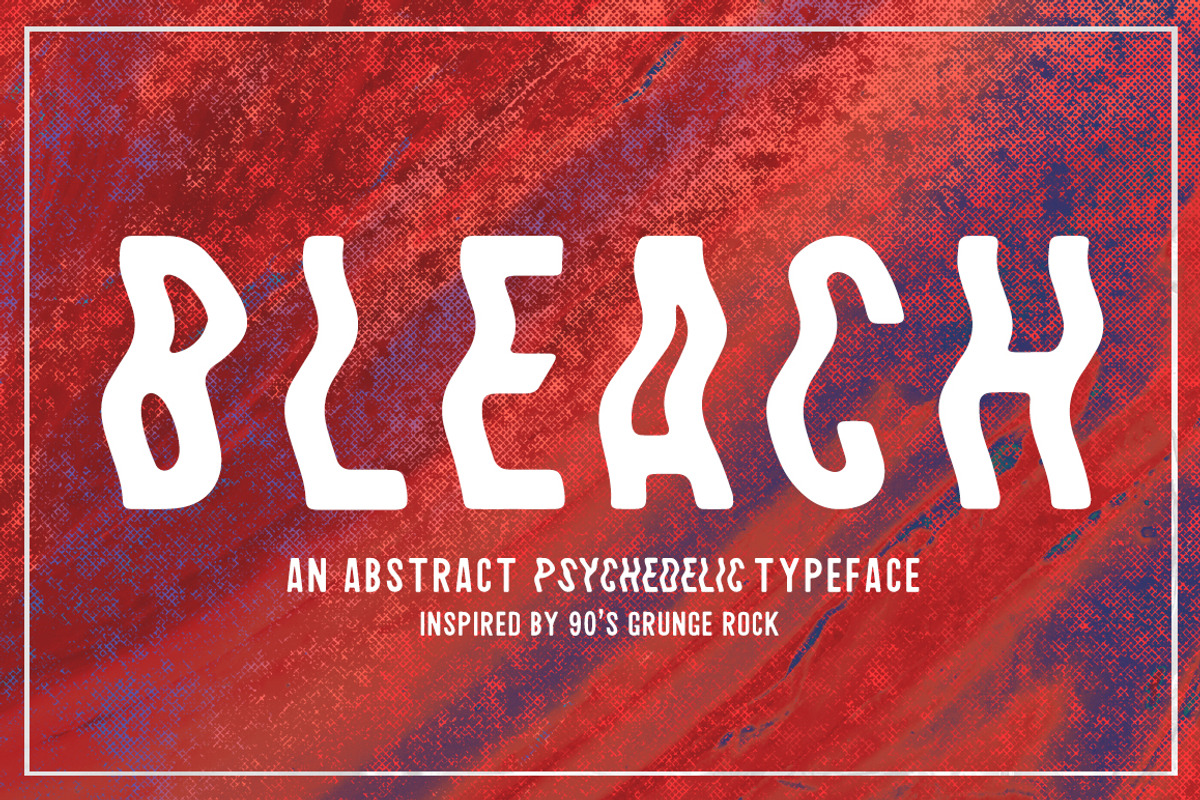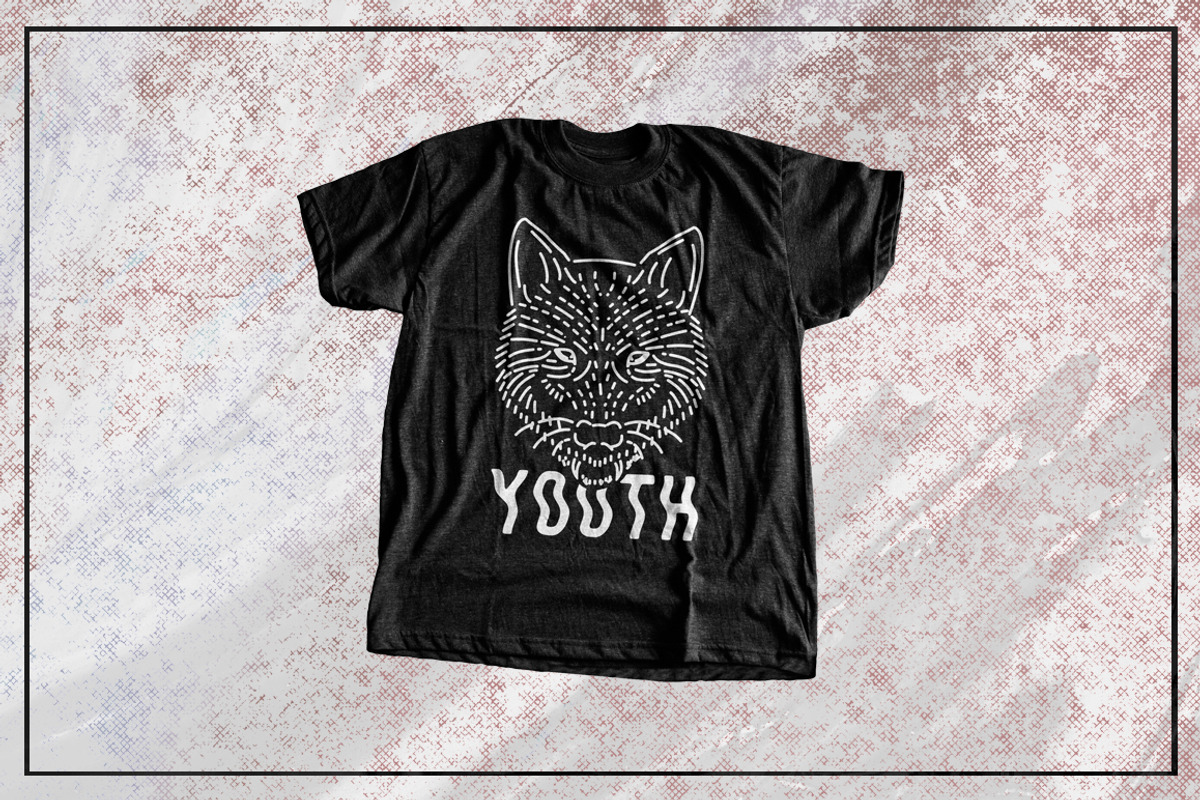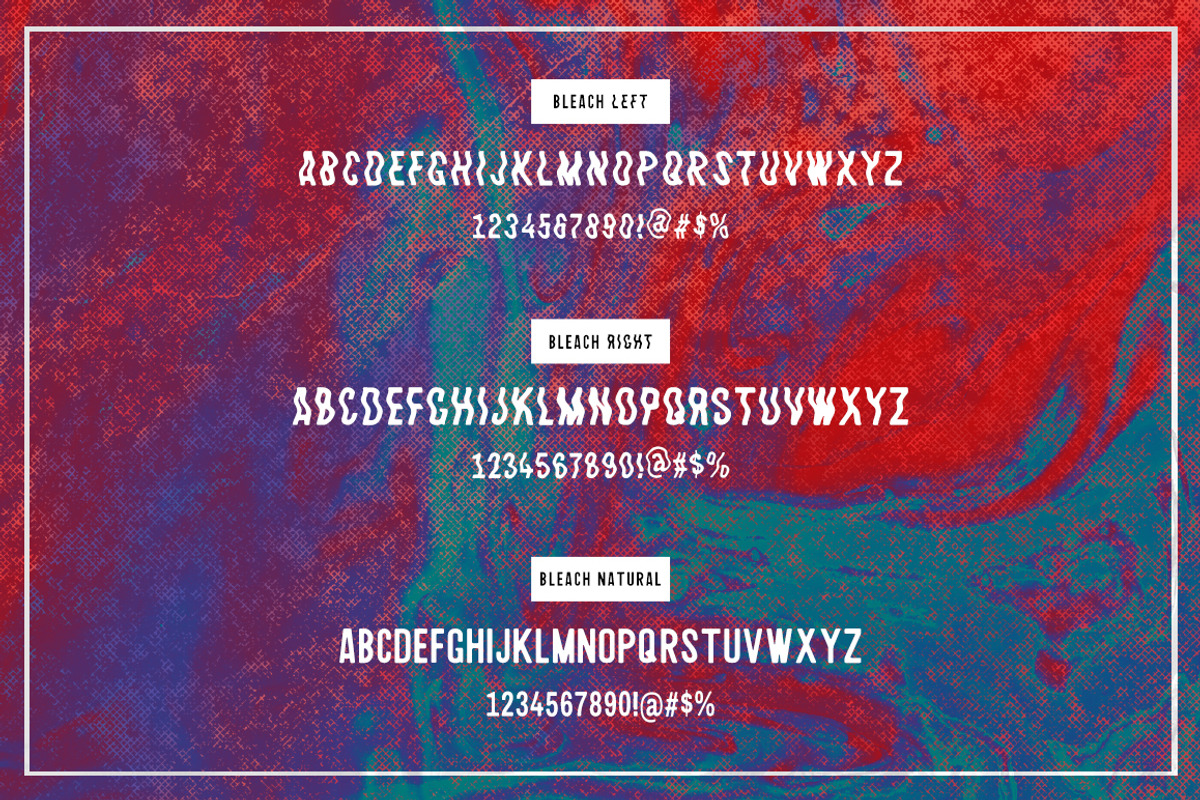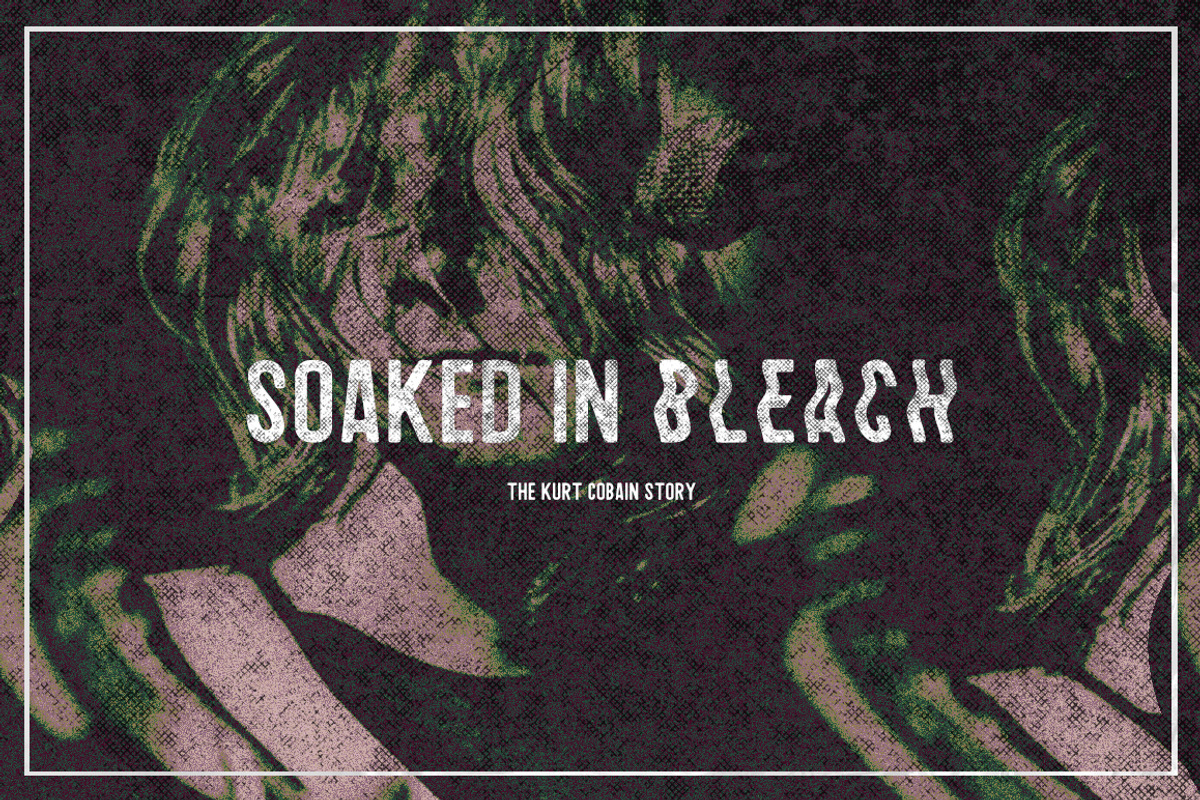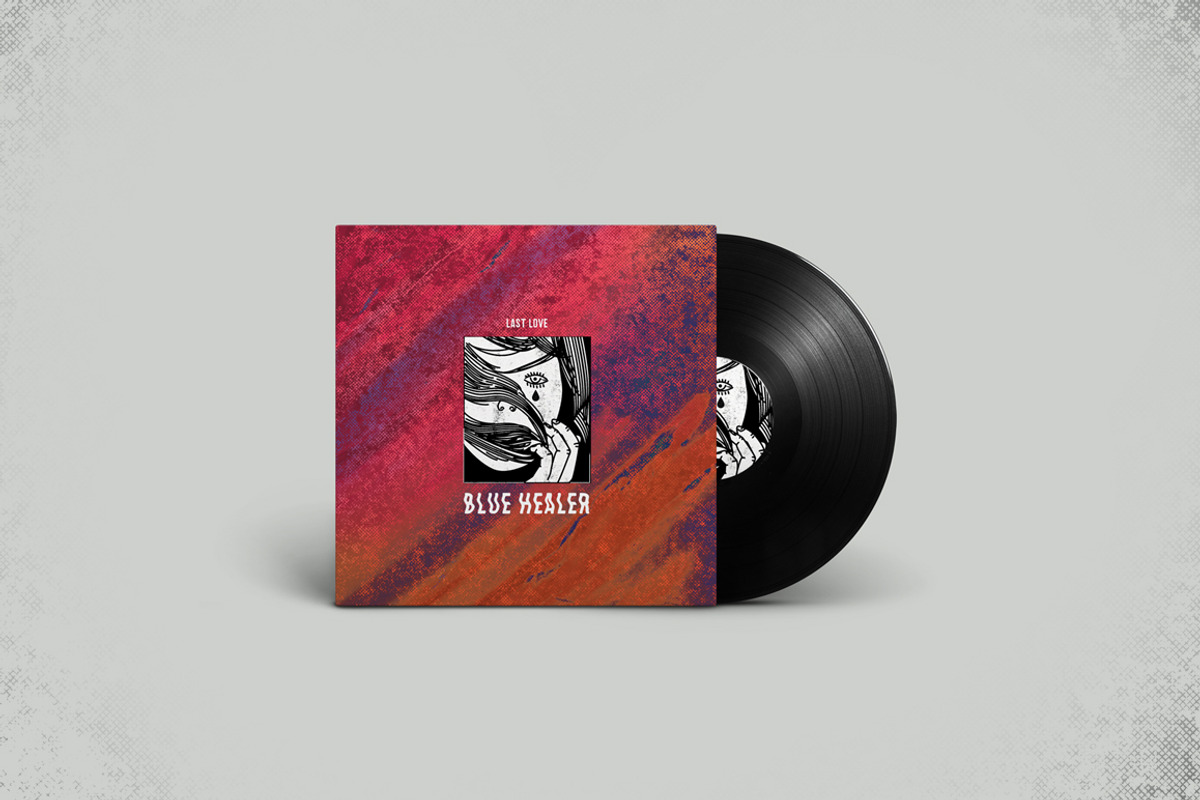
Bleach / Sans-Serif Typeface
Bleach / Sans-Serif Typeface by Dylan Roop Design Co. is a font selected for branding, posters, packaging, typography.
- Bleach Left
- Bleach Natural
- Bleach Right
Bleach / Sans-Serif Typeface by Dylan Roop Design Co. fits naturally into Branding, posters, packaging, typography.